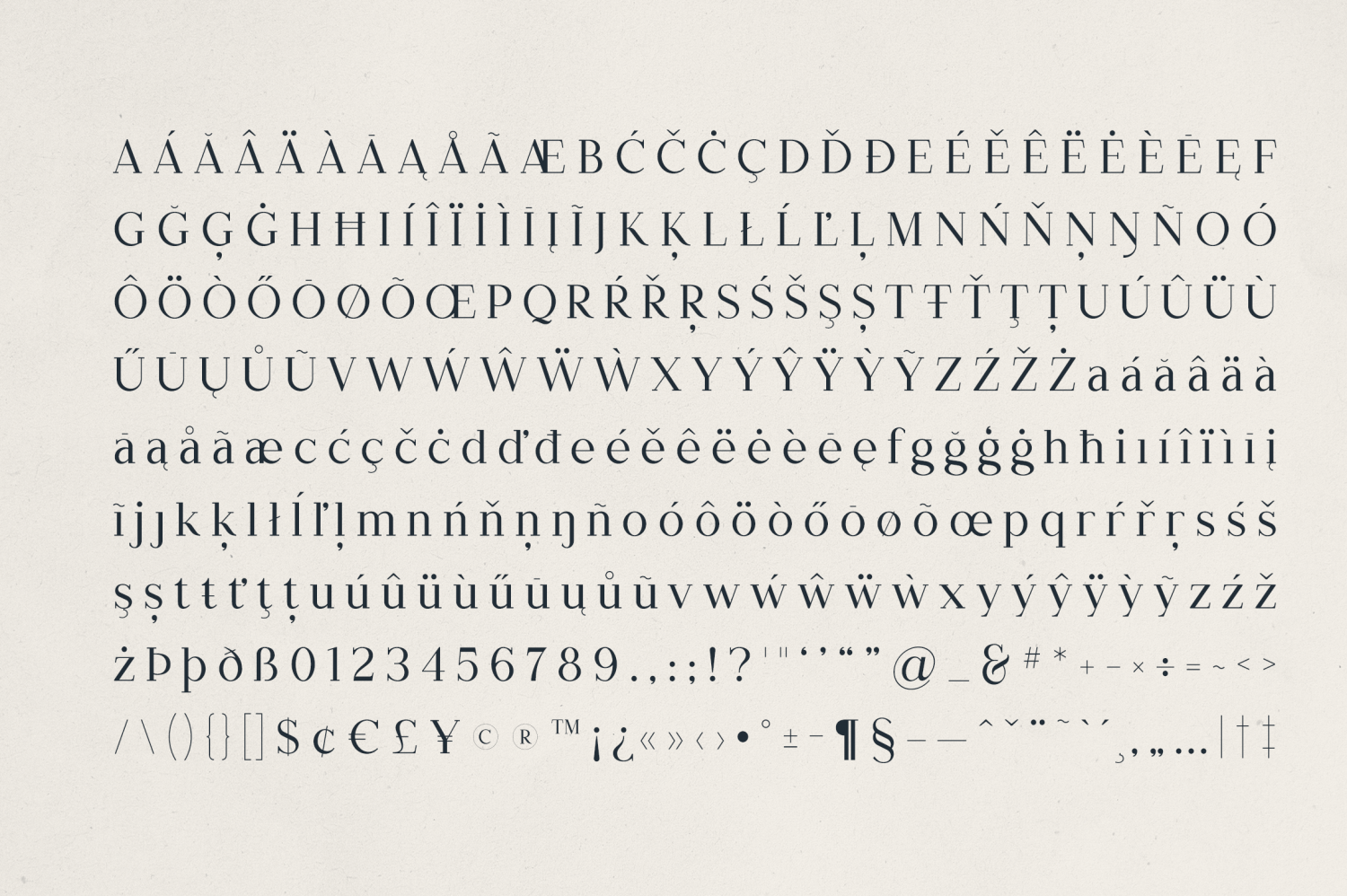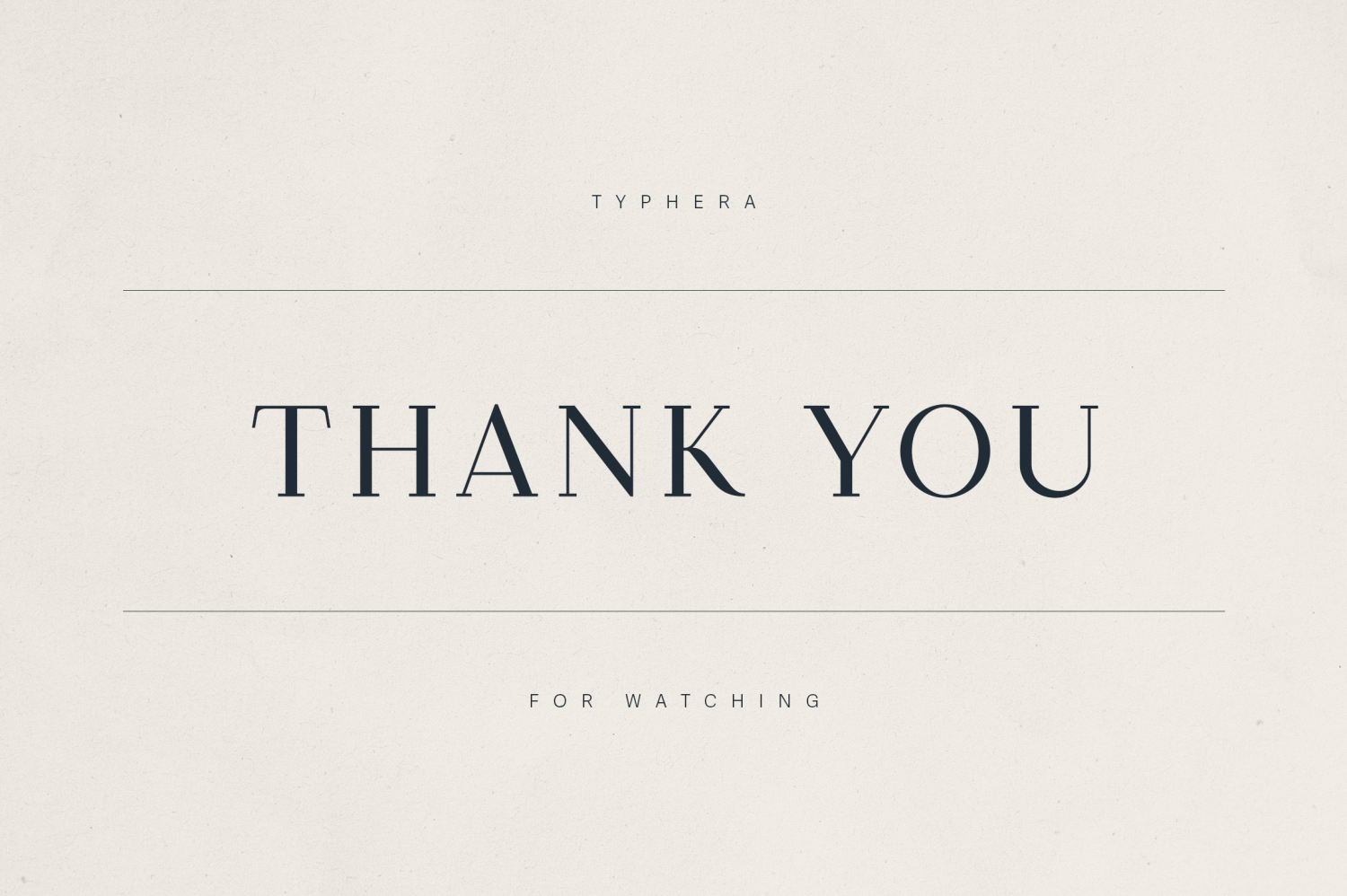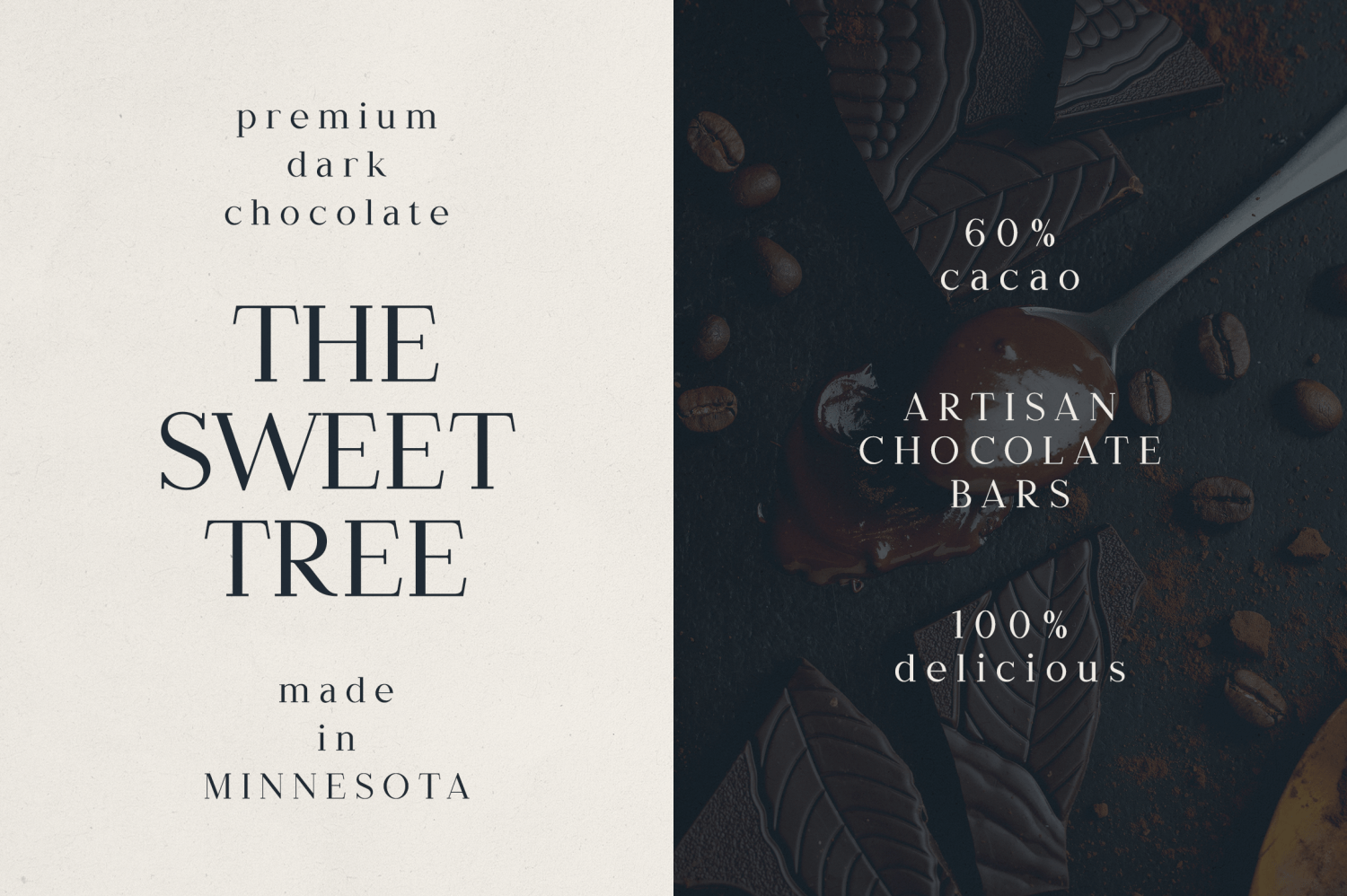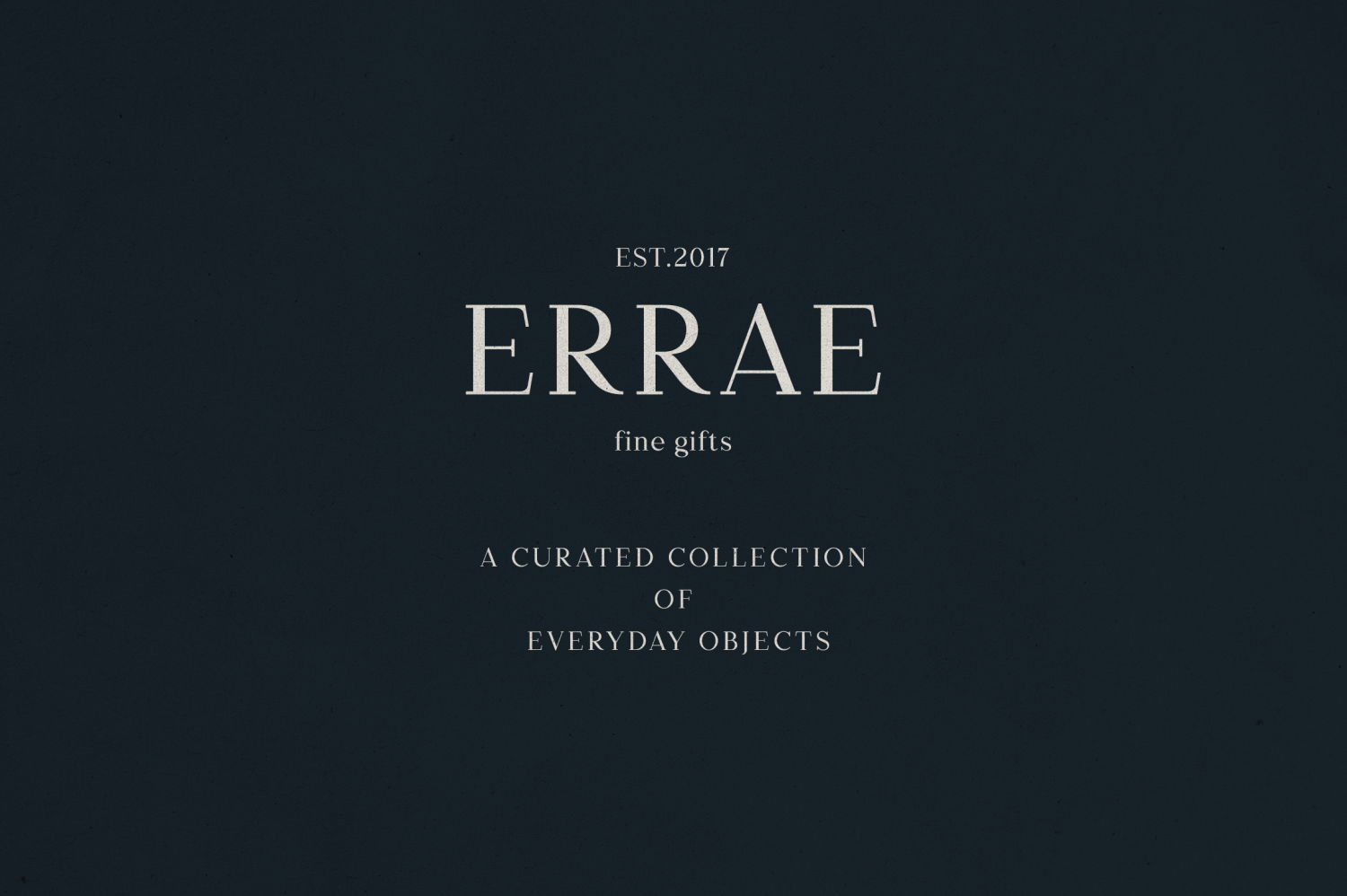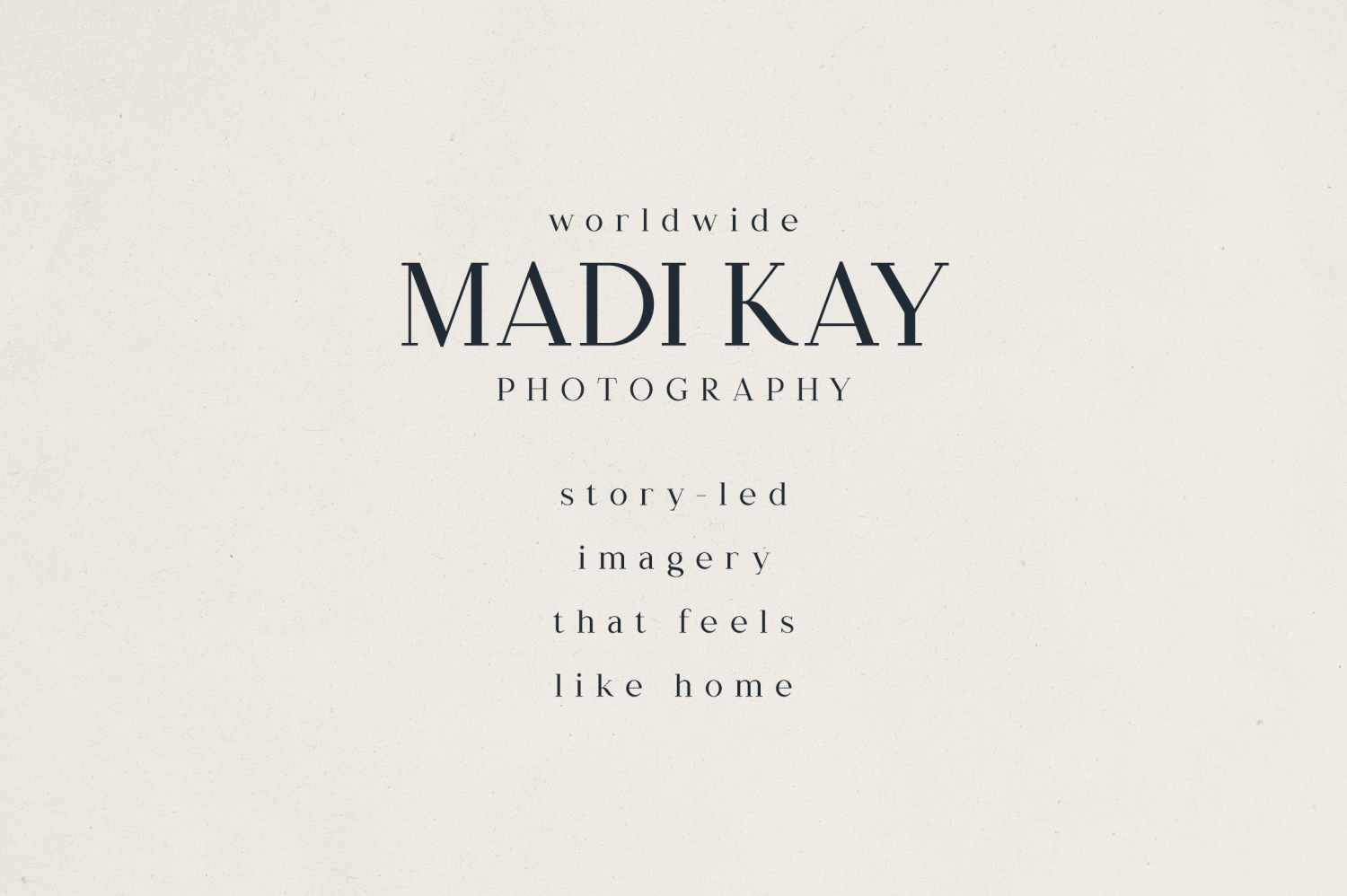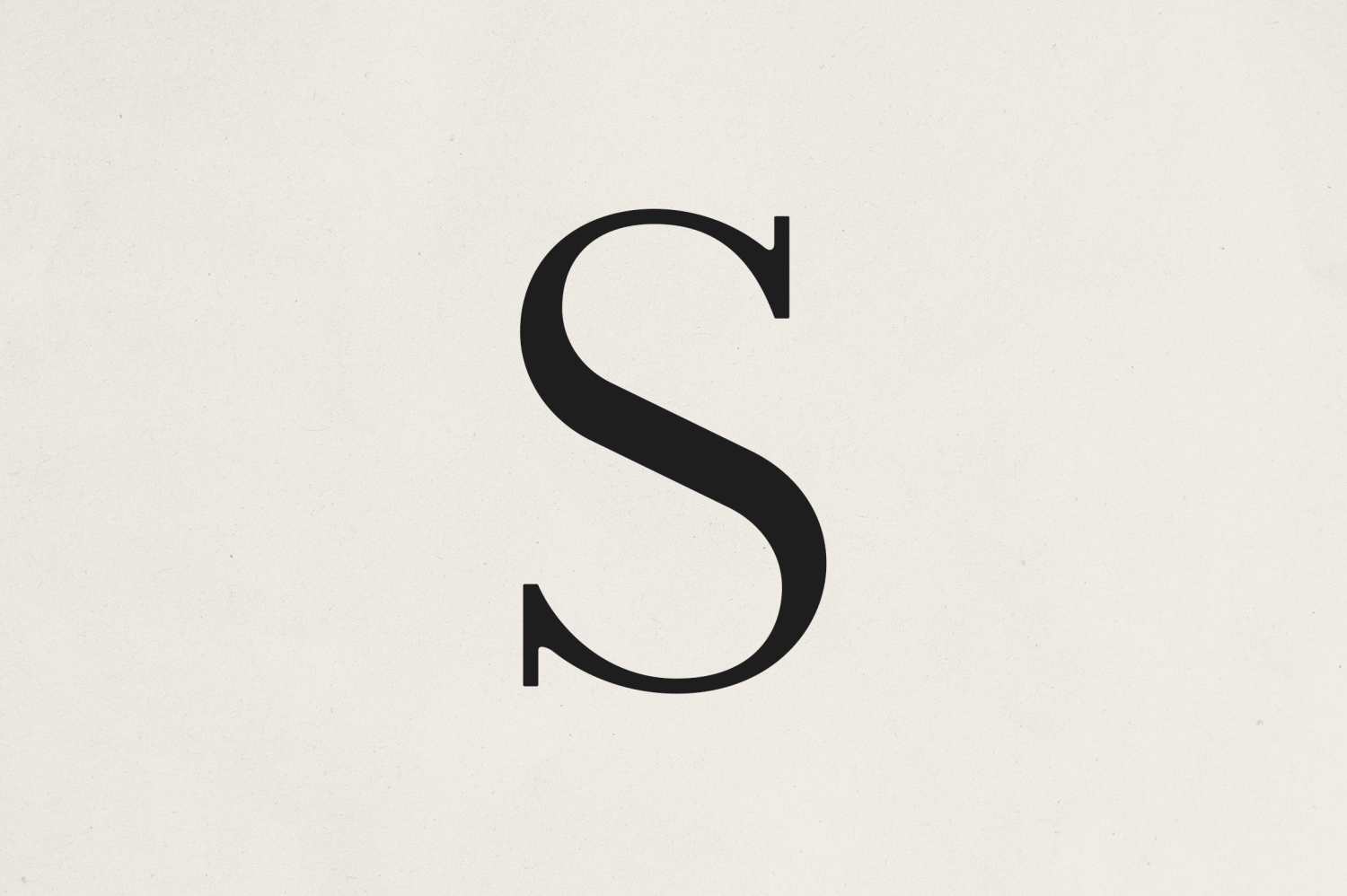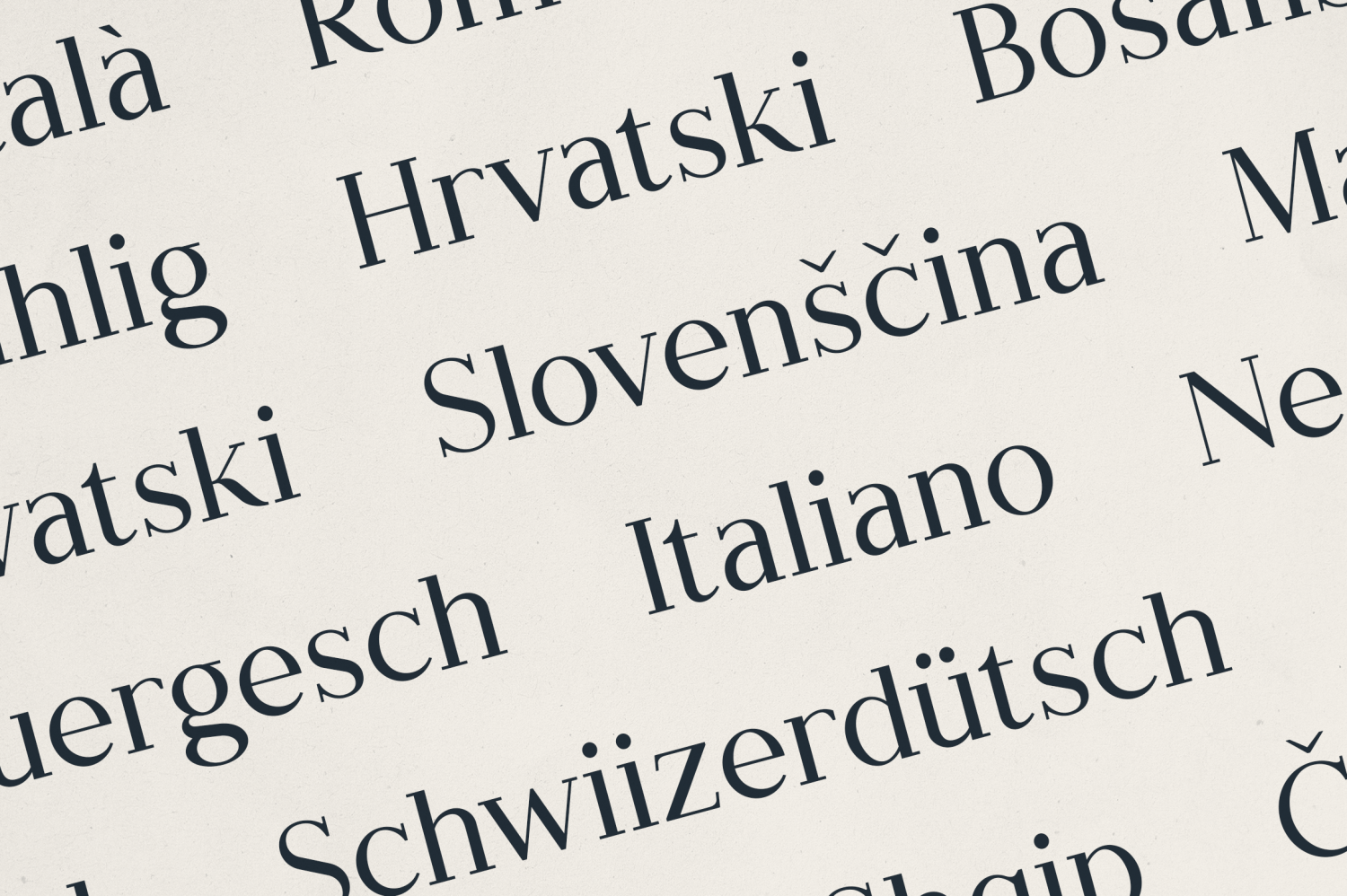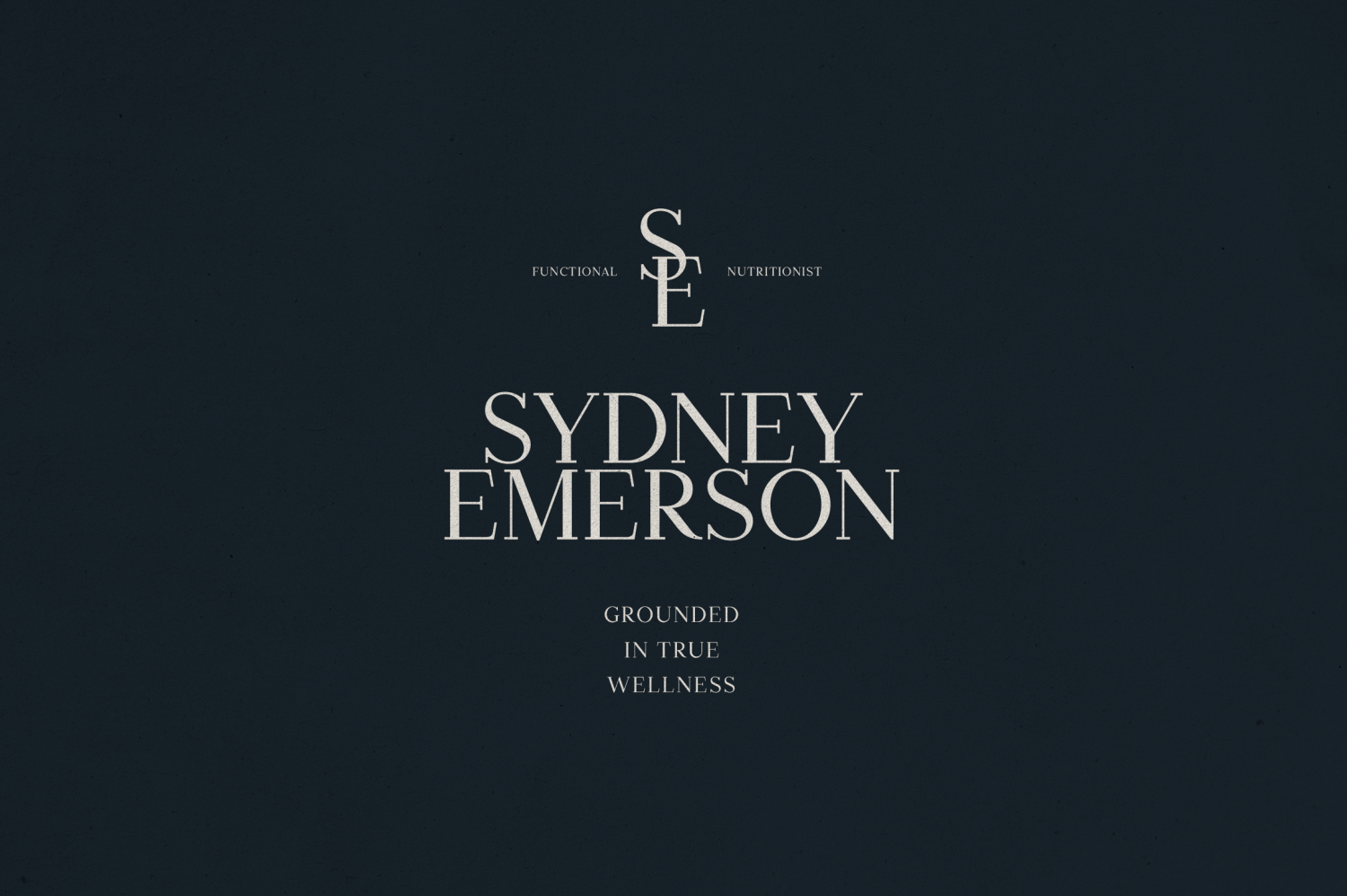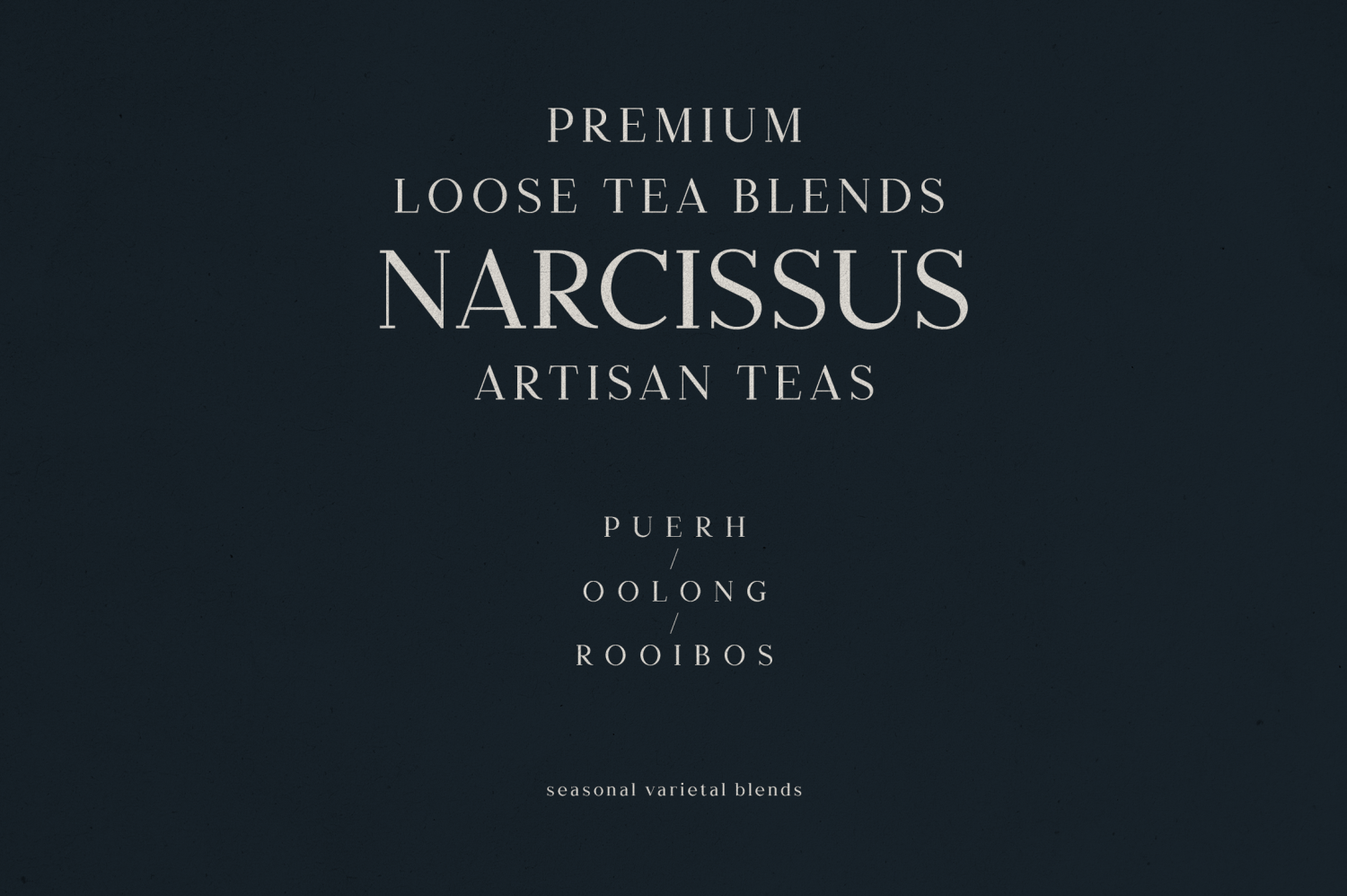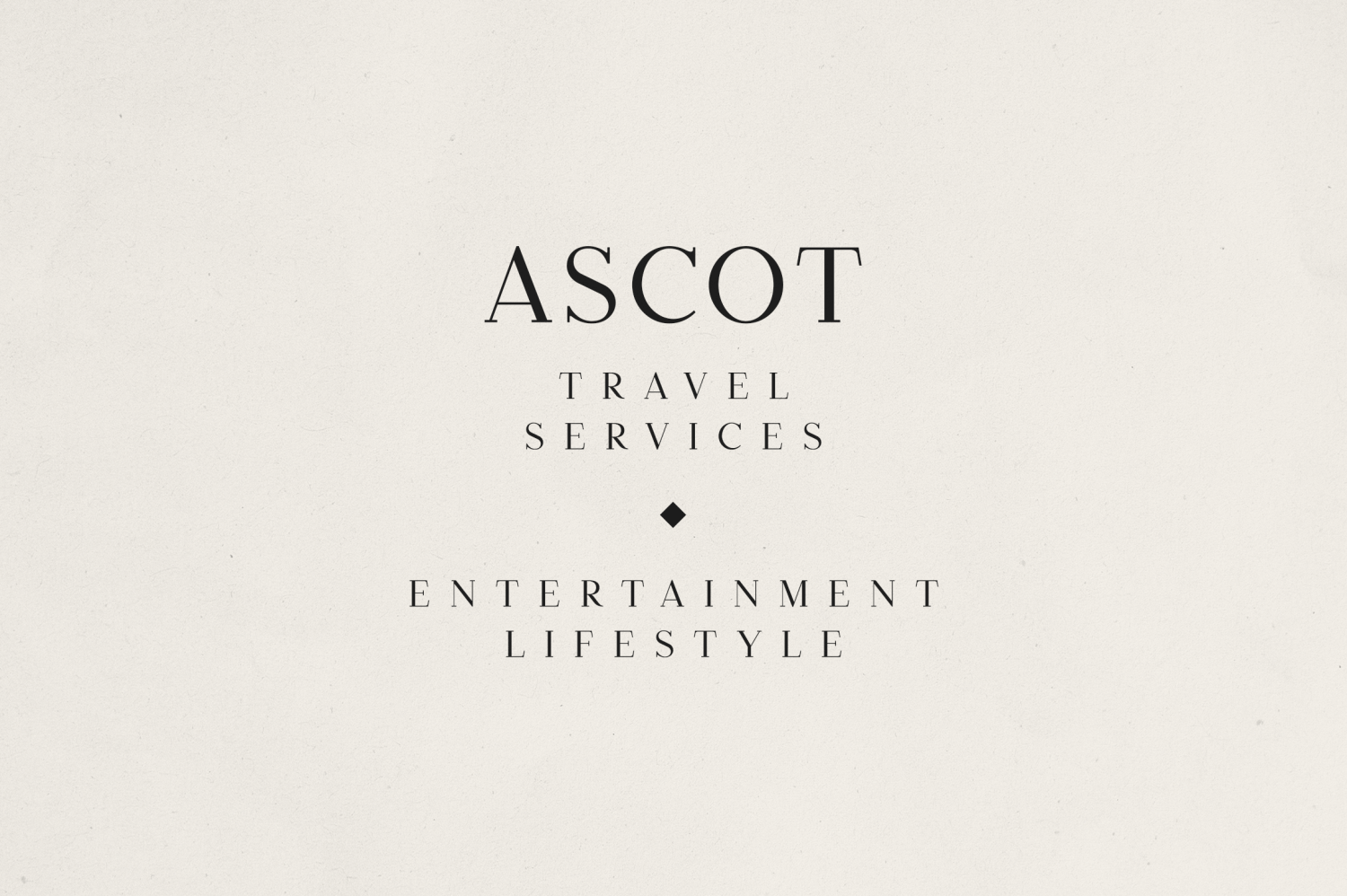
Typhera
Font Family by VP Creative Shop
Typhera – Elegant Serif Font for Timeless Branding & Editorial Design
Introducing Typhera, a refined serif typeface designed to bring elegance, clarity, and sophistication to your creative projects. With its classic proportions, subtle contrast, and sharp serifs, Typhera is perfect for premium branding, editorial layouts, packaging, and high-end digital or print design.
This versatile serif font supports extensive multilingual characters, making it ideal for global use. Whether you're designing artisan chocolate packaging, editorial covers, photography brand identities, or luxury product labels, Typhera elevates your message with timeless charm.
Key Features:
• Elegant and timeless serif style
• Perfect for branding, packaging, magazines, and logos
• Full uppercase, lowercase, numerals & punctuation
• Extensive multilingual support (including Latin-based European languages)
• Well-crafted glyphs
• Ideal for luxury, lifestyle, food & beverage, fashion, and editorial designs
Add a touch of class and confidence to your typography with Typhera – where heritage meets modern sensibility.